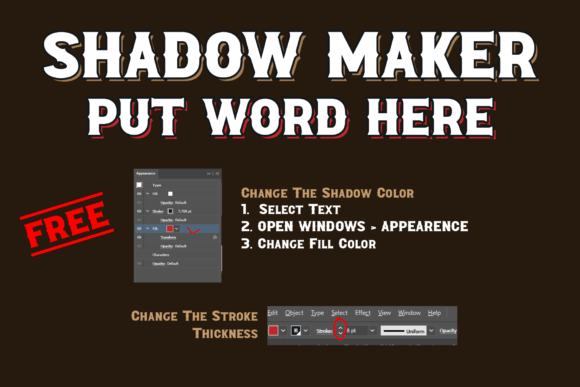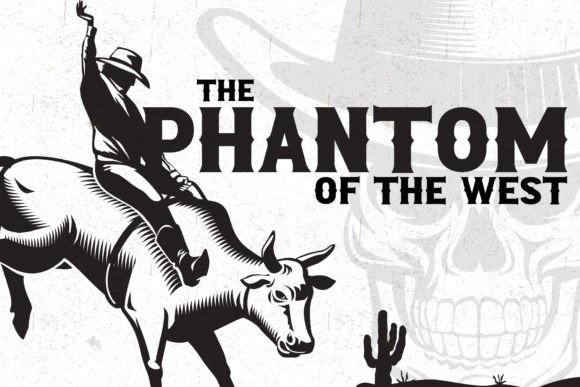
Deadwood Font
Deadwood – Serif Western Font
Introducing Deadwood – an old western font, carefully handcrafted. It also has a modern touch suitable for logo text, brand labels, magazine/publishing headlines, and titles, or for any occasion.